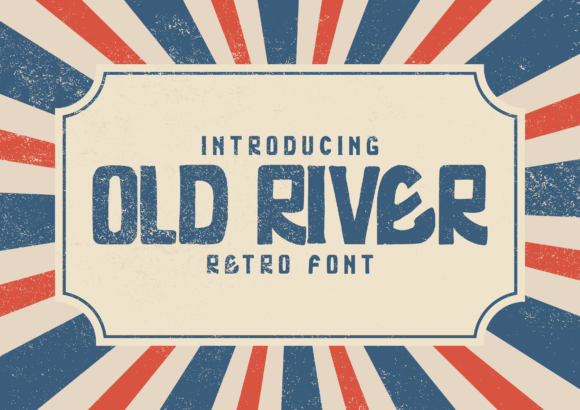
Discover Old River Font, an Irresistible Display Font that Channels the Spirit of a Cozy Coffee Shop
Step into a world of warmth, comfort, and nostalgia with Old River Font, the ultimate display font inspired by the charm of a classic coffee shop. This captivating font exudes a cool, bold, and rough-textured personality that will elevate your creative projects to new heights.
Indulge your senses in the rich, inviting aroma of freshly brewed coffee beans as you explore the endless possibilities of Old River Font. Its unique character adds a touch of rustic elegance to your designs, evoking the ambiance of a cozy coffee shop where stories unfold and dreams take flight.
With Old River Font, you'll embark on a journey of creativity, transforming your ideas into visually stunning masterpieces. Let your imagination run wild as you craft handmade cards, design captivating logos, create eye-catching labels, and so much more.
Whether you're a seasoned designer or just starting your creative journey, Old River Font is your perfect companion. Its user-friendly nature makes it accessible to all skill levels, allowing you to effortlessly add a touch of sophistication and charm to your projects.
Step into the world of Old River Font today and unlock a treasure trove of creative possibilities. Let your imagination soar as you craft designs that resonate with warmth, comfort, and timeless charm.